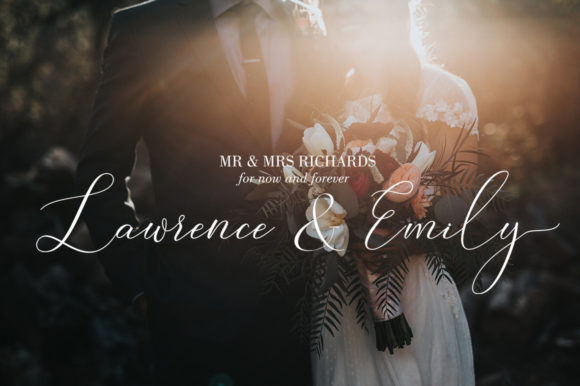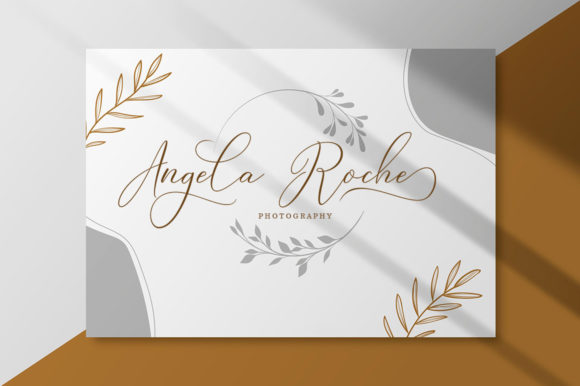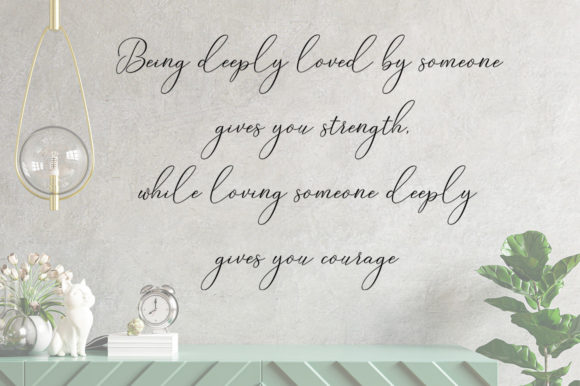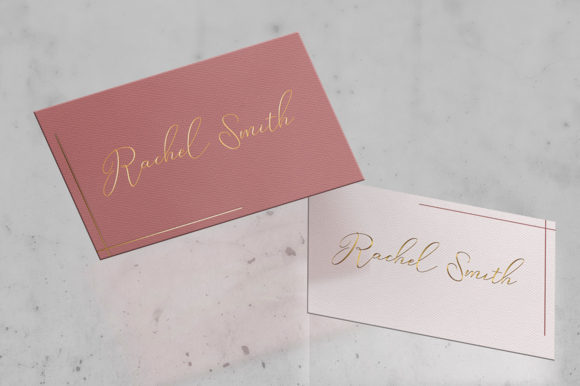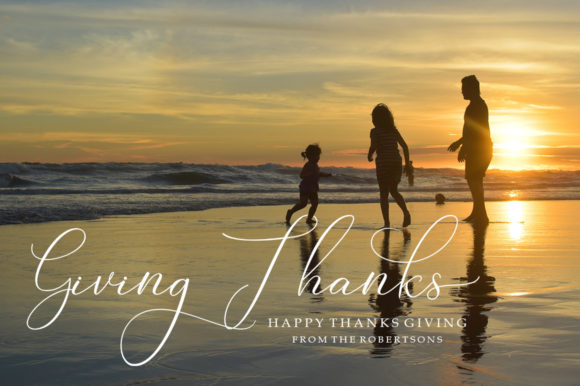
Brighton Script Font
About Brighton Script Font
Brighton Script is a beautiful light handwritten font with a unique feel and a stunning impact. It will add a luxury spark to any design project that you wish to create! This font is PUA encoded which means you can access all of the amazing glyphs and ligatures with ease!